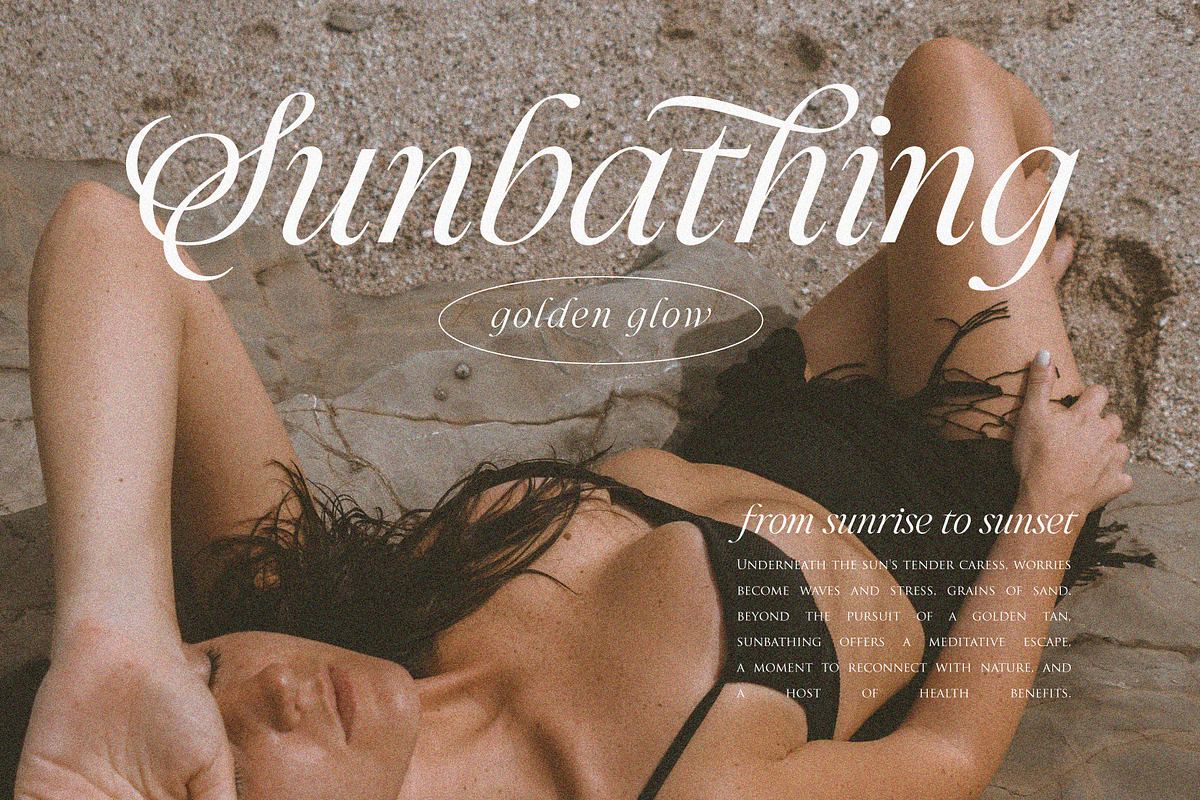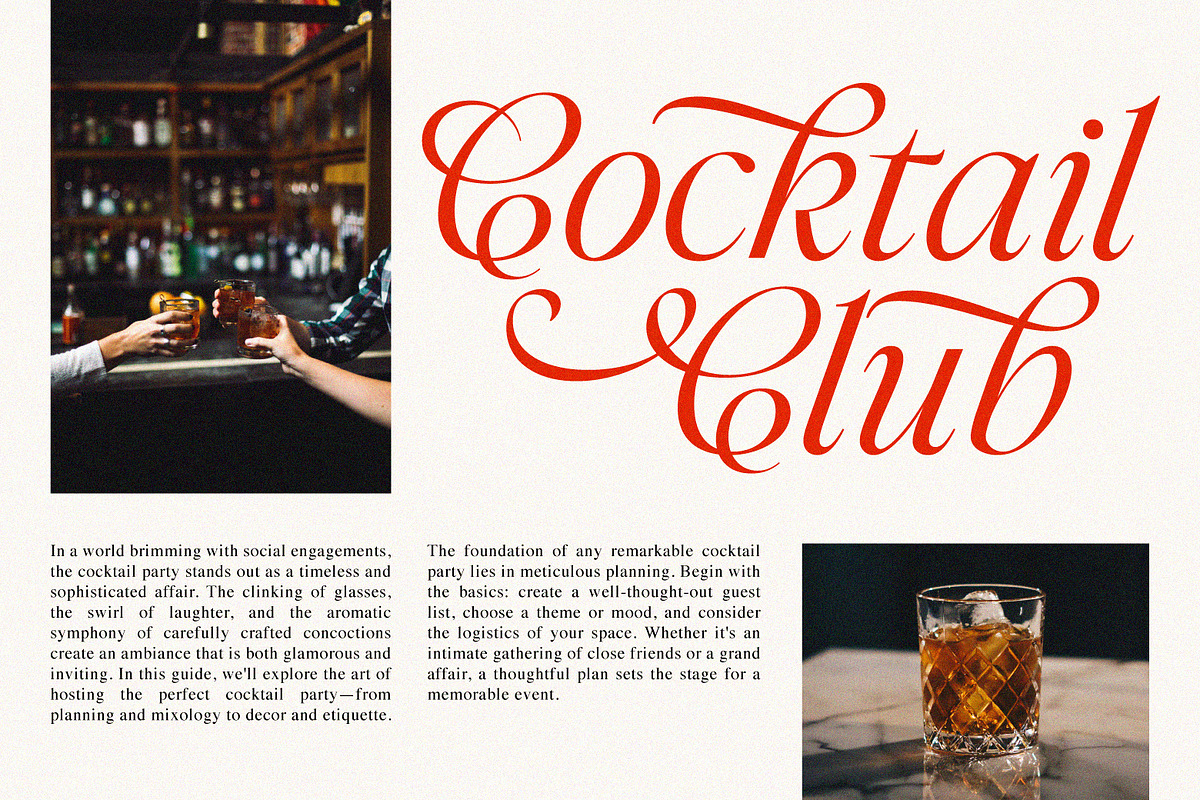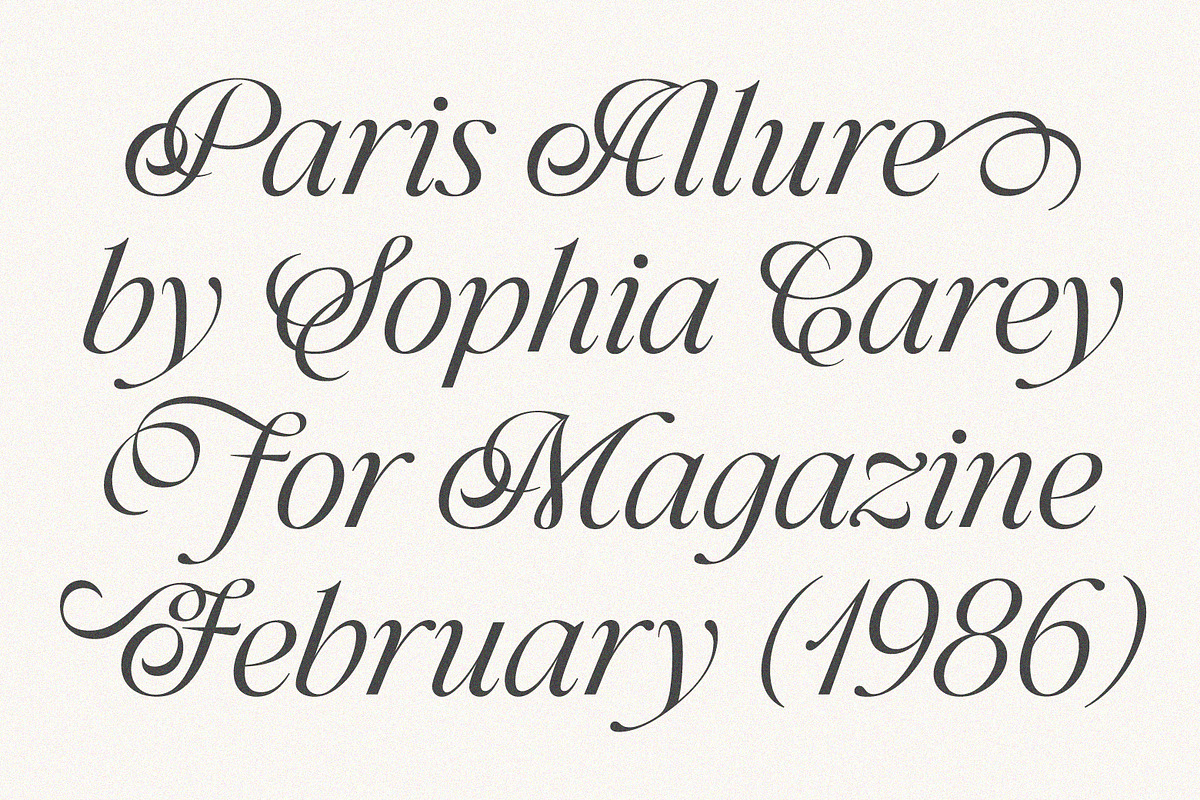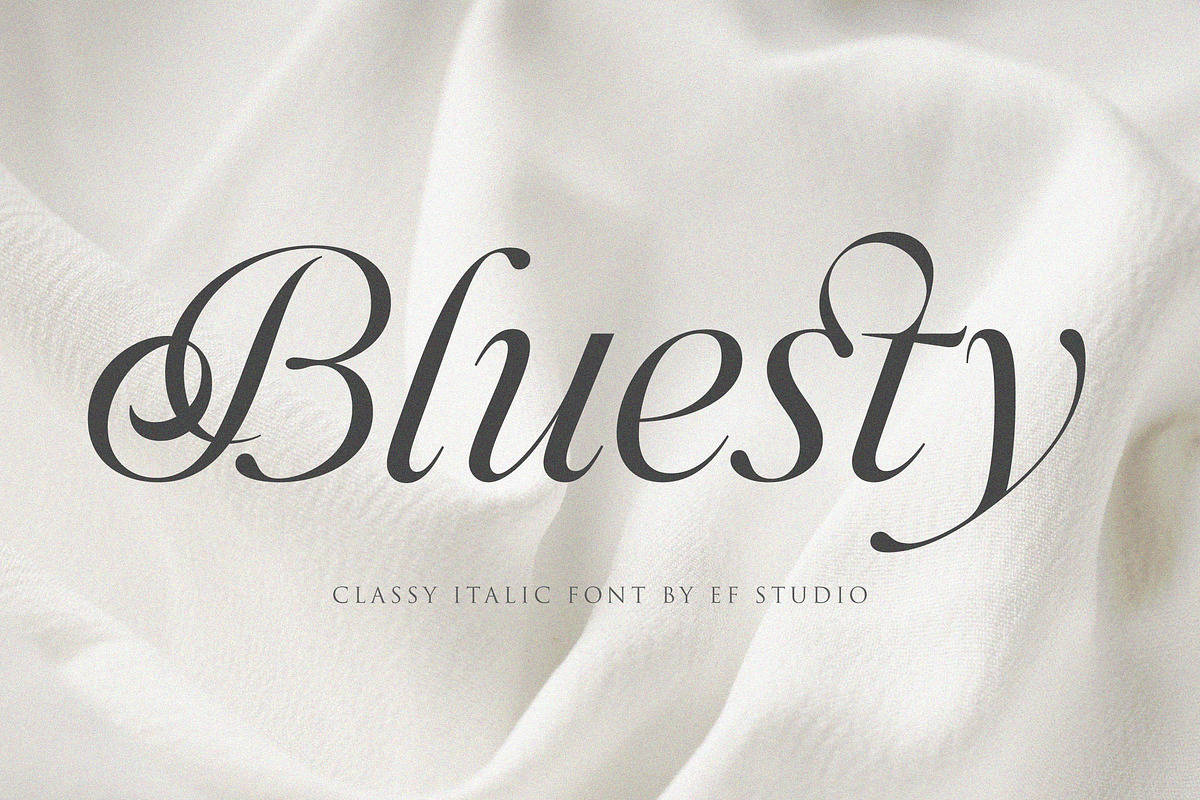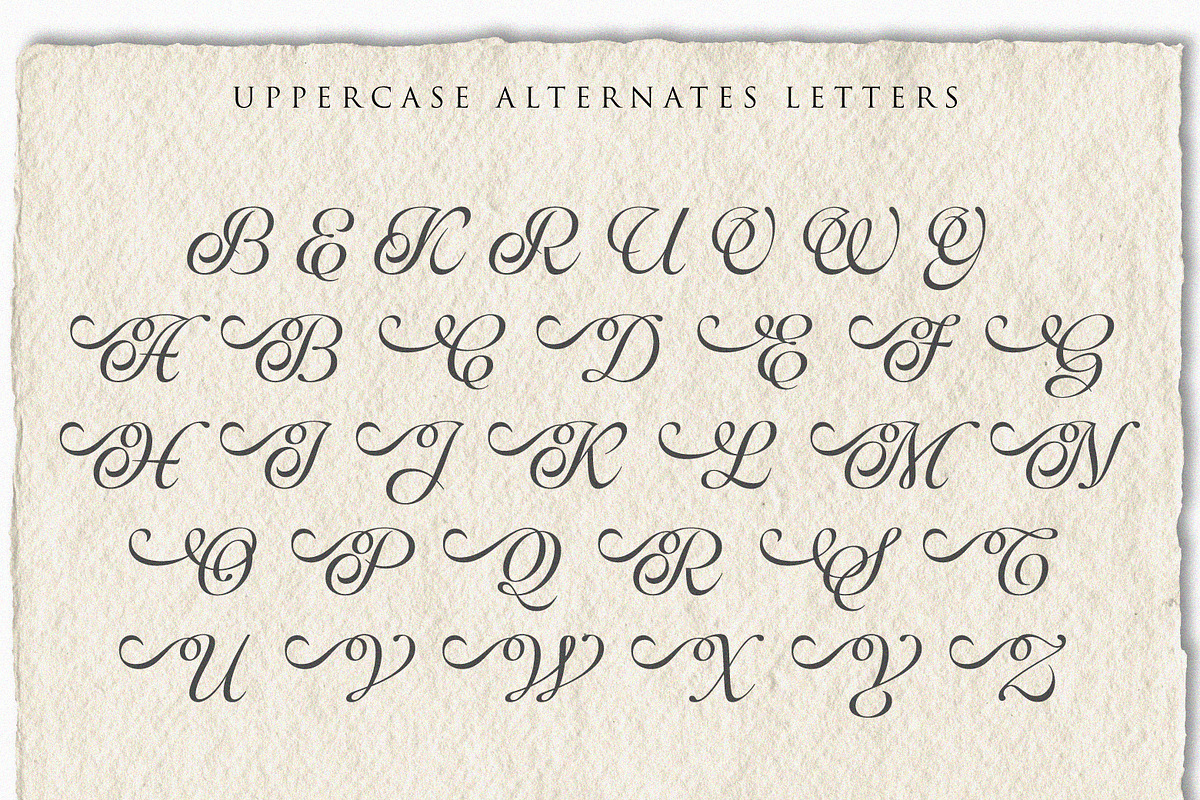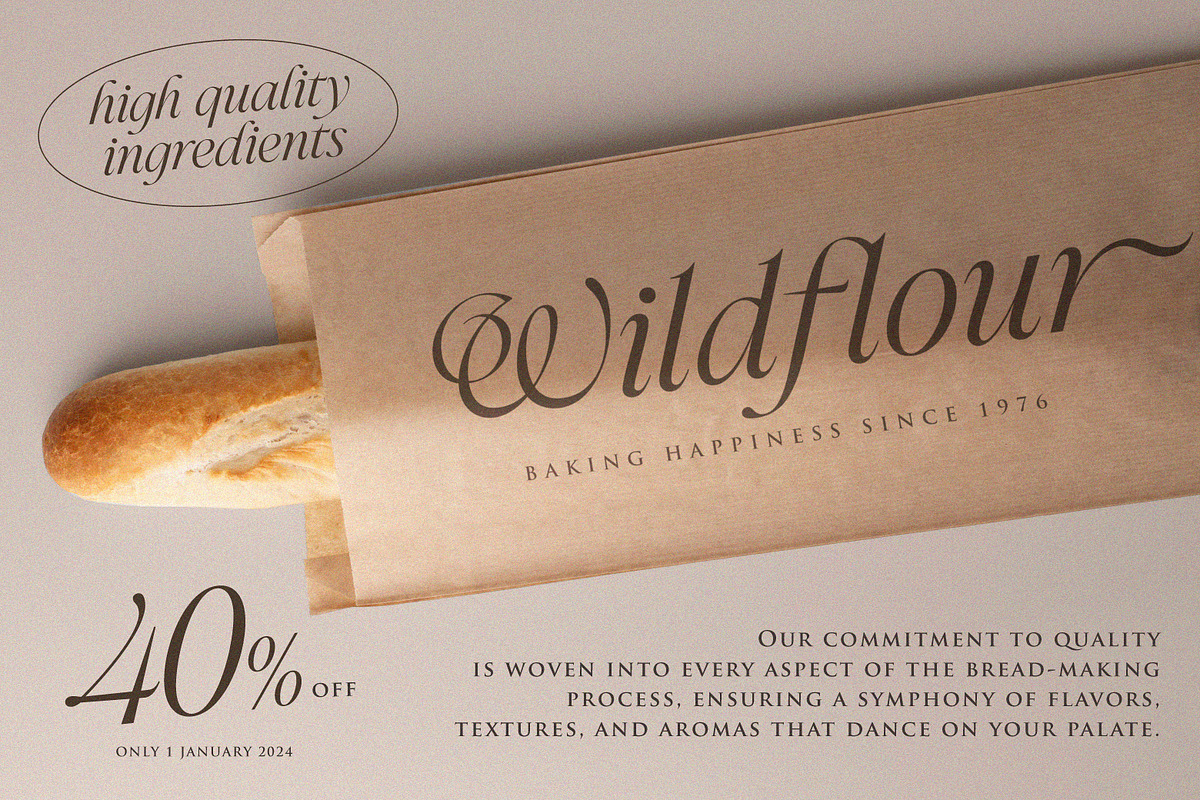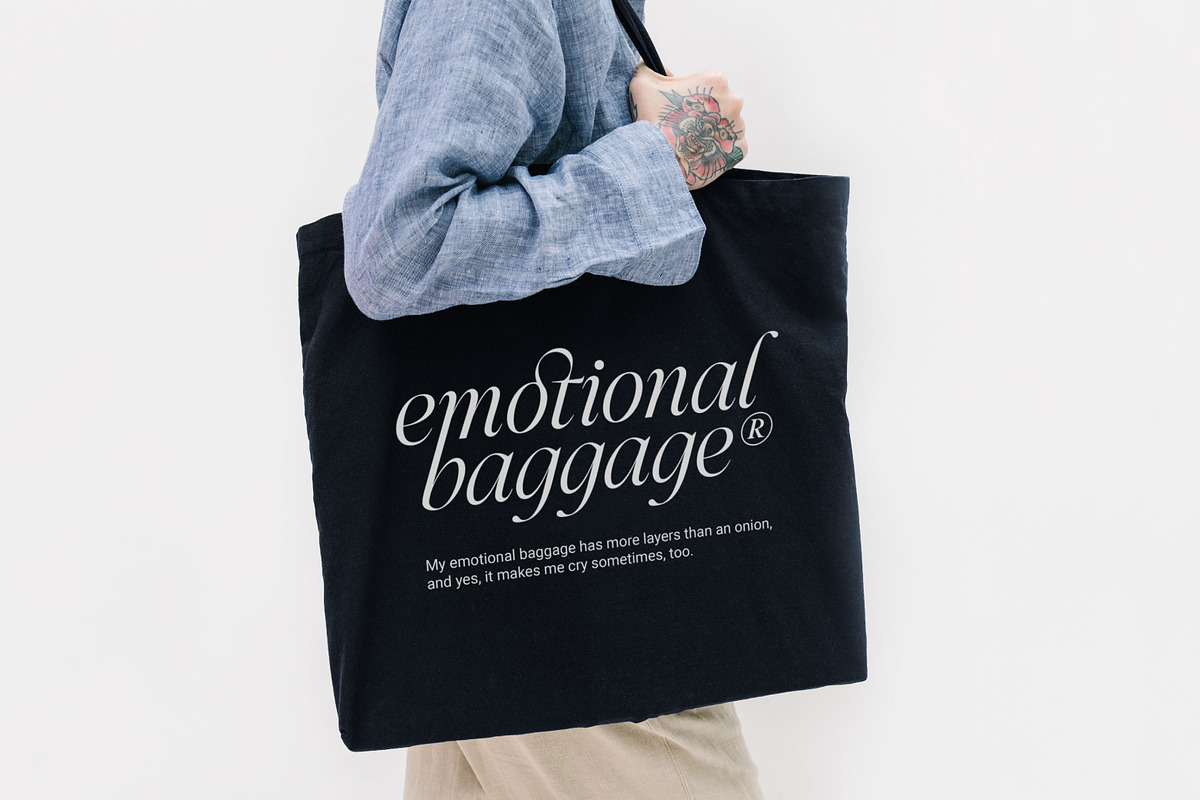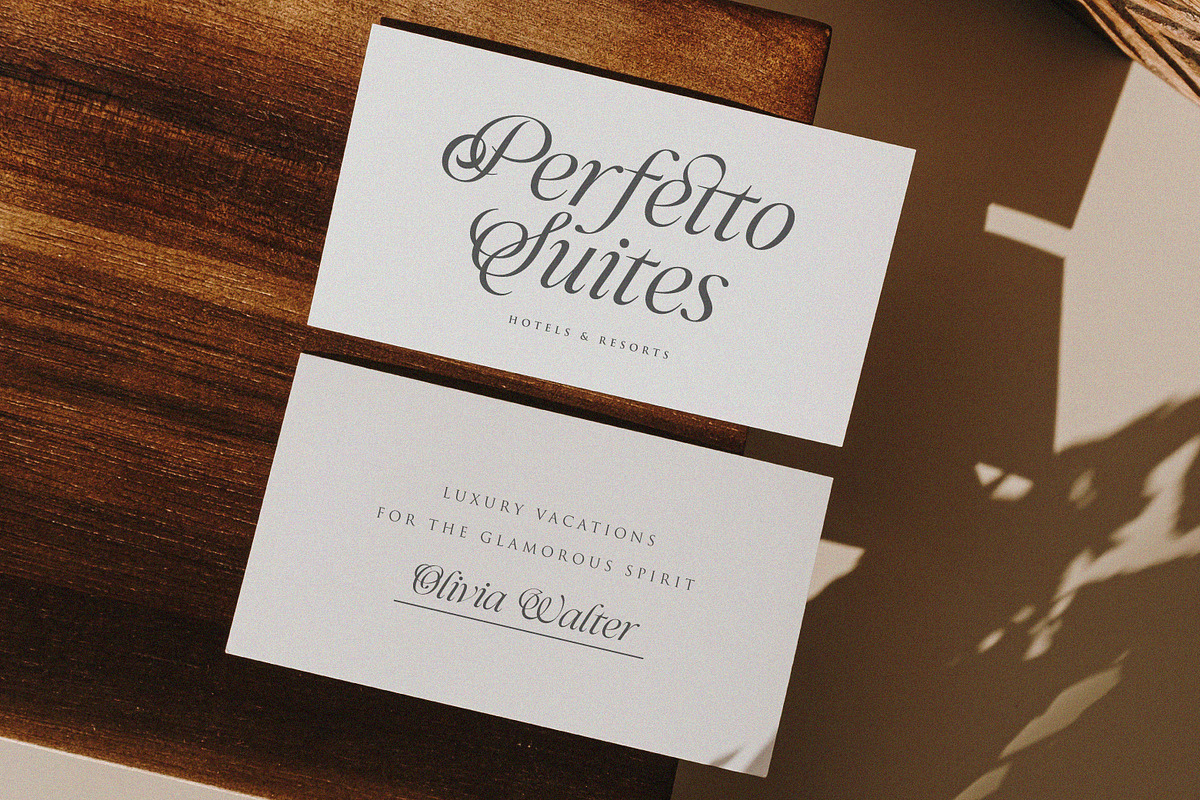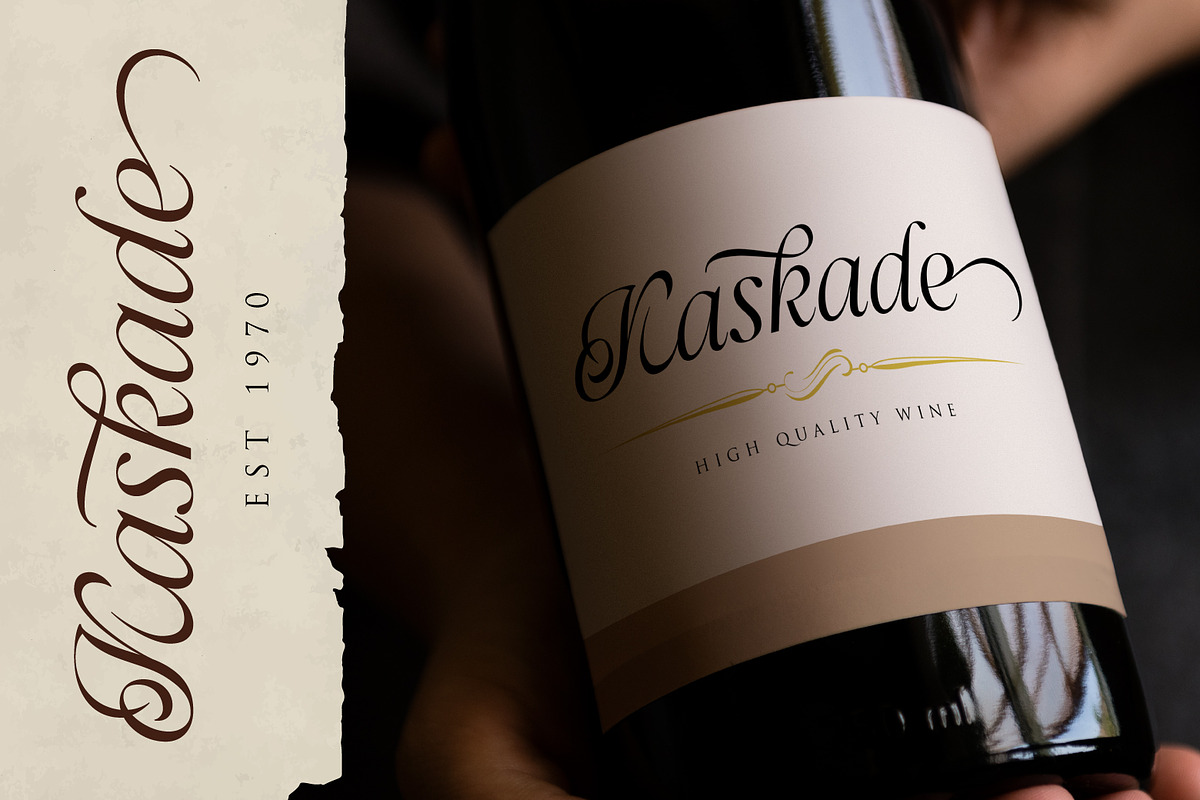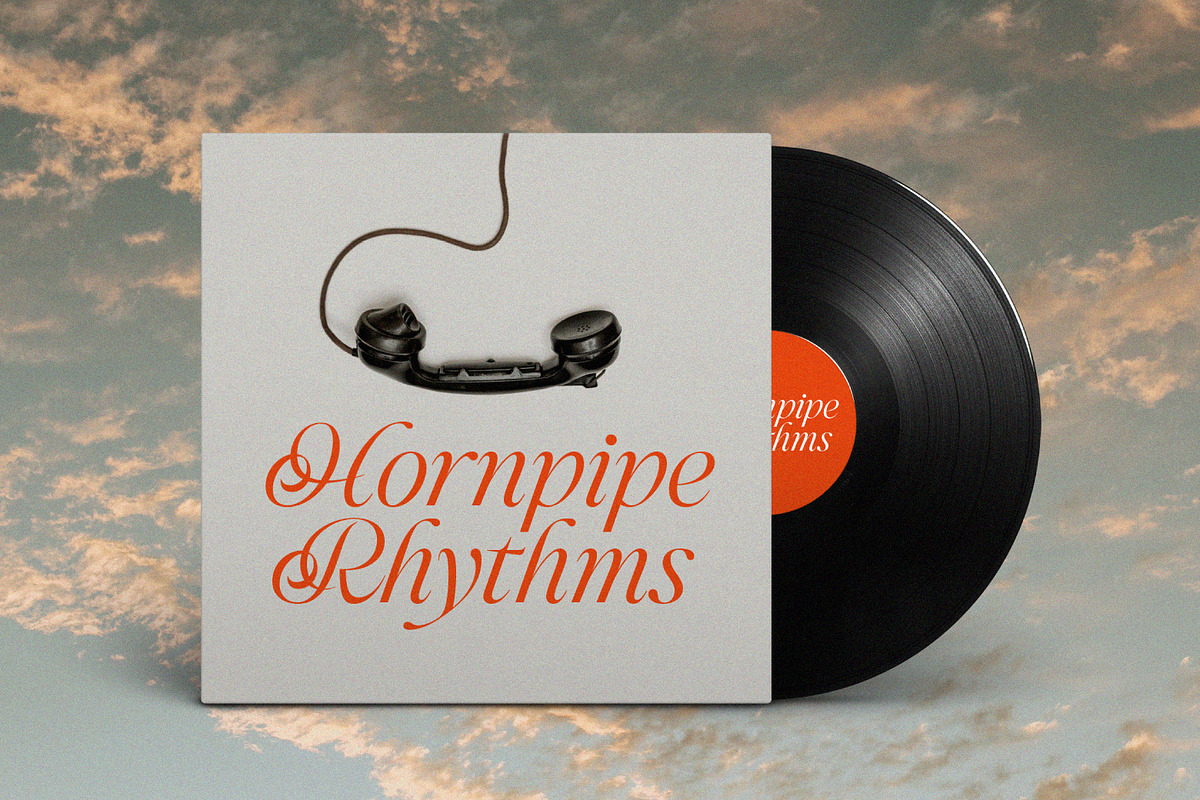
Bluesty | Classy Italic
Meet our latest font : Bluesty. A perfect harmony of curves and angles, this font effortlessly elevates your text, lending an air of refinement to your words. Whether for invitations, logos, or printed materials, let this font add a touch of sophistication to your design, making every word a work of art.